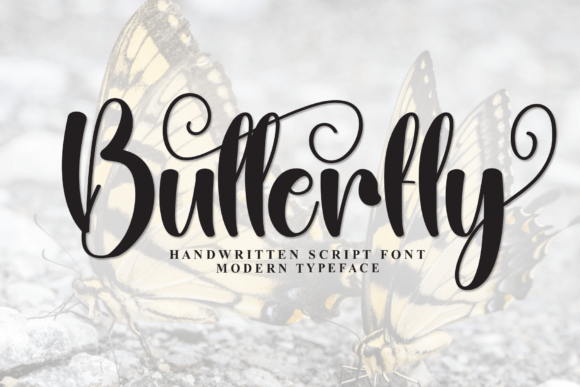
Get Ready to Soar with the Butterfly Font
Have you ever stared at a blank design canvas, searching for the perfect font to capture the essence of your creative vision? We’ve all been there, right? The frustration of scrolling through endless font options, only to find that something’s missing – that special je ne sais quoi that sets your project apart.
Enter the Butterfly Font, a charming handwritten display font designed to add a playful touch to your designs. With its whimsical aesthetic and effortless charm, this font is perfect for infusing joy into wedding invitations, greeting cards, and any other project that needs a sprinkle of fun. As a designer, you know how valuable it is to have a versatile font that can elevate your work and make it truly memorable.
Key Features of Butterfly Font
- Unique Characteristics: The Butterfly Font features a unique blend of whimsy and elegance, with intricate details and flourishes that evoke a sense of wonder and enchantment.
- Font Style: It is a script font with a flowing, cursive style that is perfect for creating beautiful, handwritten-like text.
Butterfly Font Review
I recently had the chance to work with the Butterfly Font, and I must say it’s a mixed bag. ✨ On the plus side, the font is incredibly feminine and elegant, making it perfect for designs that require a touch of whimsy. The curves are smooth, and the characters are well-spaced, making it easy to read.
- The font is highly customizable, with a wide range of weights and styles to choose from.
- It’s highly versatile and can be used for a variety of projects, from invitations to fashion branding.
- The font is well-suited for both digital and print designs.
However, there are a few limitations to consider. ⚠️ The font can be a bit too ornate for some projects, and the high level of customization can make it difficult to find the perfect balance of style and readability. Additionally, the font may not be suitable for projects that require a more minimalist or modern aesthetic.
Overall, I would recommend the Butterfly Font for projects that require a touch of elegance and whimsy. However, it’s not the best choice for every project, and designers should be careful to balance the font’s ornate features with the needs of their design.
Tips for Getting the Most Out of the Butterfly Font
Use the Butterfly Font to add a touch of whimsy and elegance to your designs.
Pair it with bold or italic fonts for contrast and emphasis.
Use the Butterfly Font for:
Children’s book illustrations and graphics.
Magazine and brochure designs.
Alternatives to Butterfly Font
Great Vibes Font is a modern, elegant script font perfect for creative projects, invitations, and branding. It has a similar flowing feel to Butterfly Font but with more refined lines and a more sophisticated look.
When to use: Great Vibes Font is ideal for luxury brands, weddings, and high-end designs where a touch of elegance is required.
Comparison: Great Vibes Font has a more refined and sophisticated look compared to Butterfly Font’s playful and whimsical feel.
Carolyna Pro Font is a beautiful, high-end script font ideal for fashion, beauty, and luxury brands. It has a similar flowing feel to Butterfly Font but with more dynamic lines and a more modern look.
When to use: Carolyna Pro Font is perfect for fashion brands, beauty products, and high-end designs where a touch of sophistication is required.
Comparison: Carolyna Pro Font has a more dynamic and modern look compared to Butterfly Font’s more classic and traditional feel.
Savoye Font
Savoye Font is a beautiful, elegant script font perfect for creative projects, invitations, and branding. It has a similar flowing feel to Butterfly Font but with more delicate lines and a more vintage look.